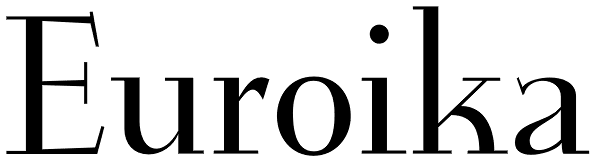
Euroika
Euroika is a decorative, serifed alphabet. The lower-case letters have a small x-height and a large contrast between the thin and thick strokes.